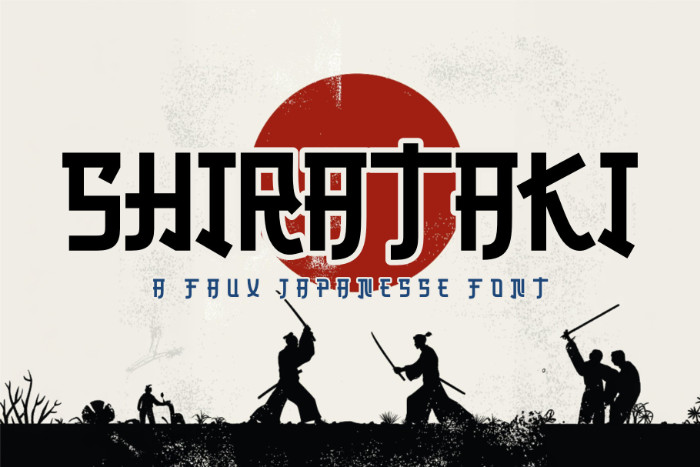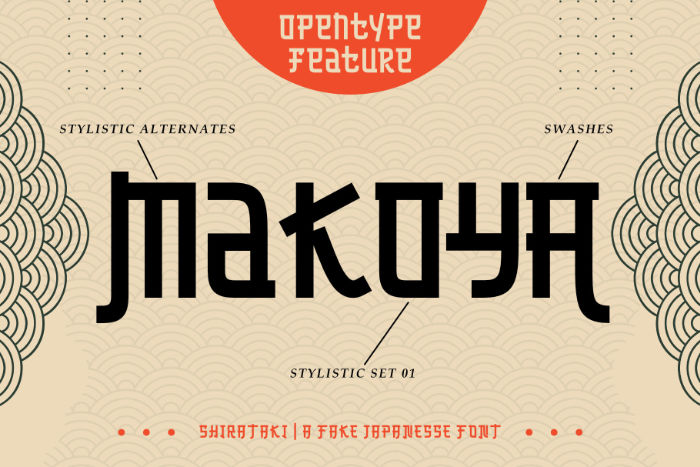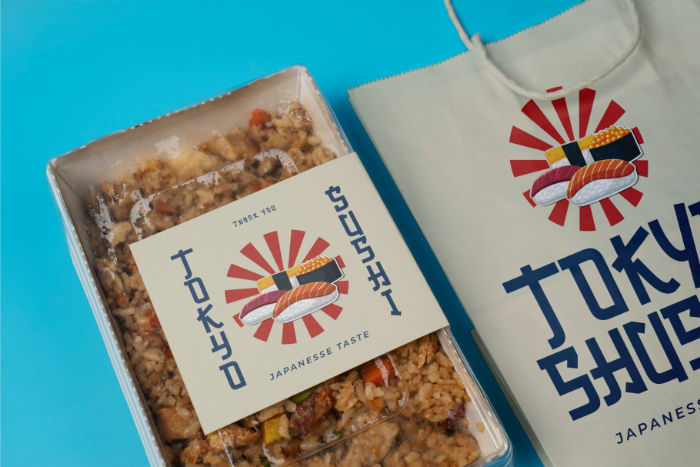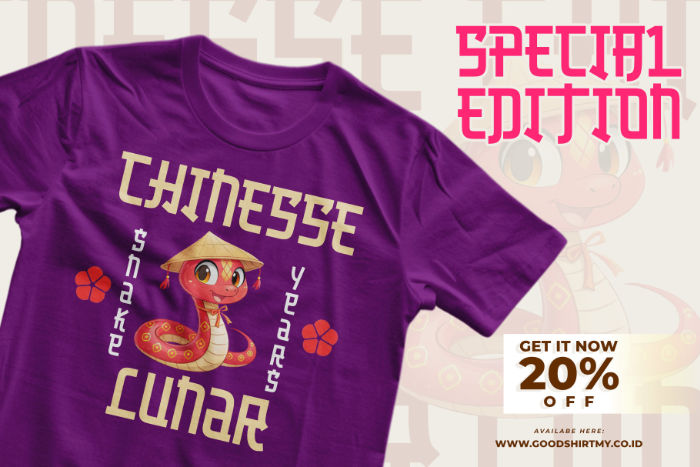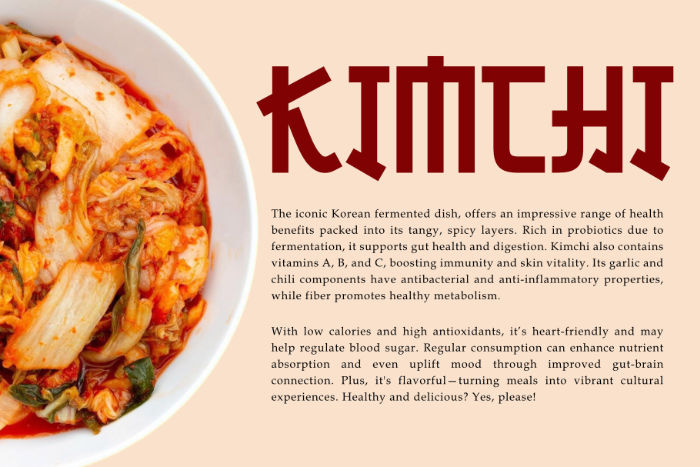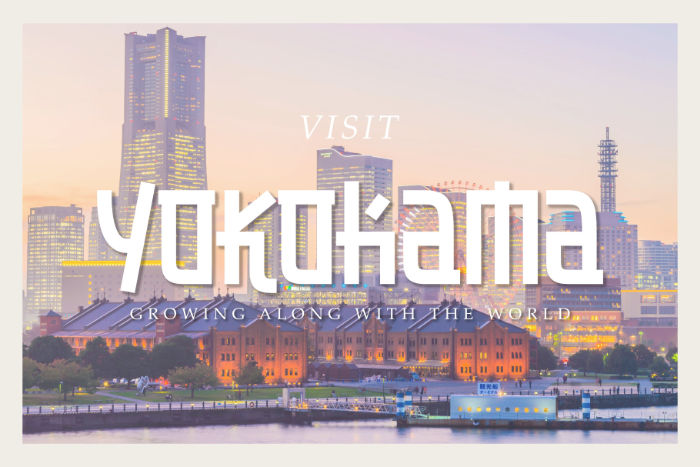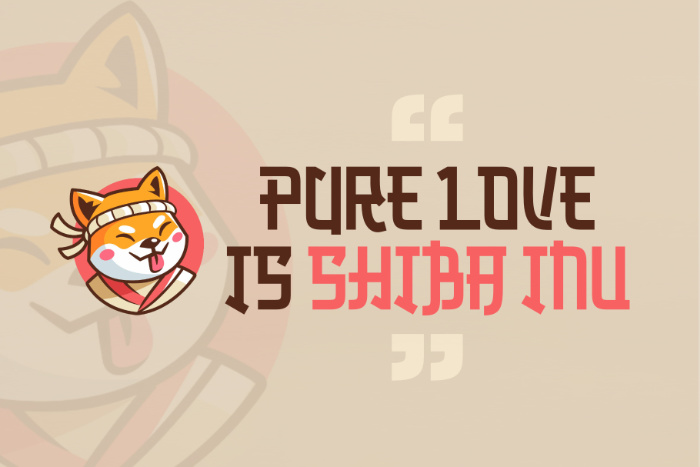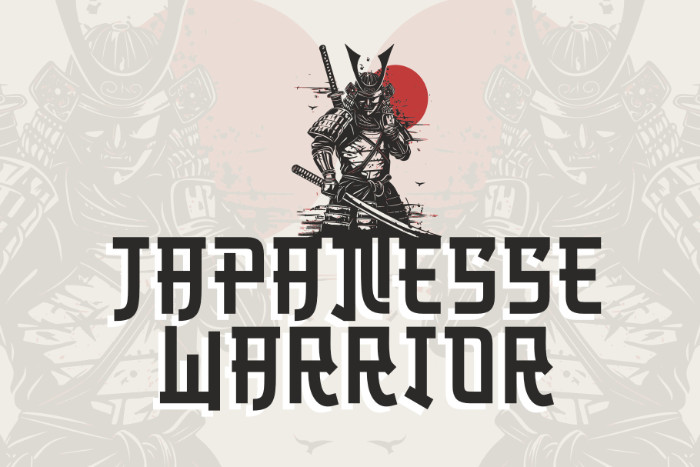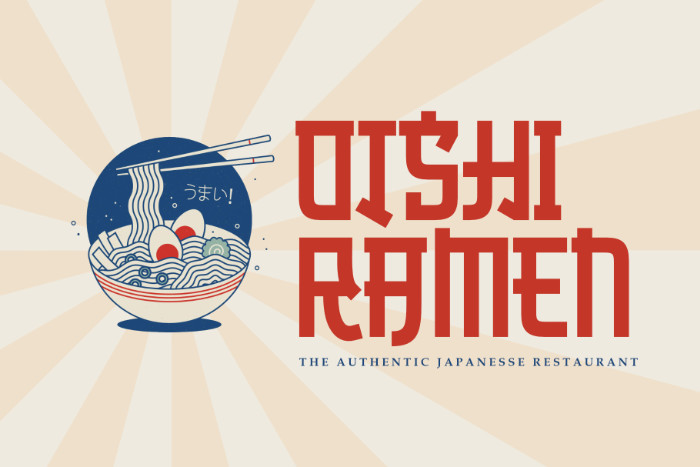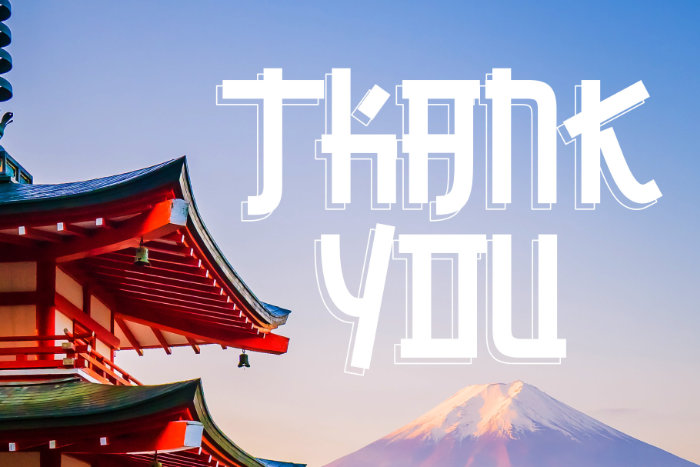
Shirataki is a captivating faux-Japanese display font designed for creative projects seeking a distinct East Asian visual flair. With its bold strokes and clean shapes, Shirataki mimics the elegance of modern kanji and hanzi scripts without adhering to actual linguistic accuracy—making it ideal for thematic designs that evoke the aesthetics of Japanese or Chinese writing without relying on real characters.
Perfect for restaurant branding, posters, packaging, games, and cinematic titles, Shirataki offers a strong cultural ambiance while remaining flexible and stylish. It includes multiple stylistic alternatives to adapt to different layout needs, allowing for creative expression across horizontal, vertical, or dynamic compositions.
Shirataki supports multilingual characters beyond its visual theme, enabling smooth integration into global projects with Latin-based text elements. Designers can combine authentic Roman letters with faux-Asian stylization, striking a balance between visual intrigue and readability.